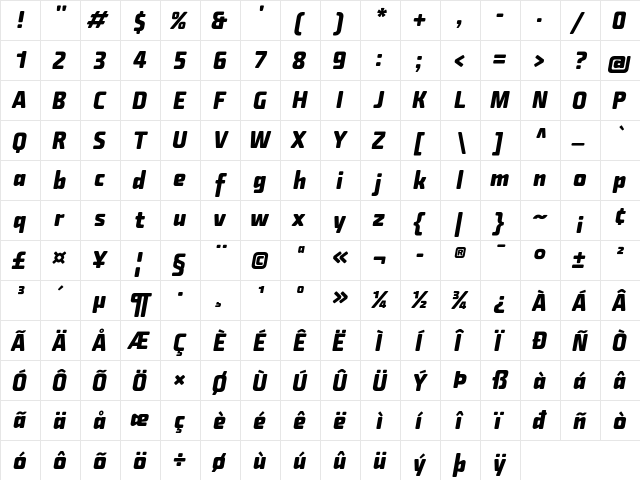
Fishmonger MB Italic
| Foundry | Tomas Brousil |
Design Context for Fishmonger MB Typeface
Fishmonger MB takes a measured approach to typography — its balanced proportions and neutral character make it a reliable workhorse for both digital and print work. The dynamic lean of this cut emphasises speed and emphasis in any layout.
Pro Tip: Try Fishmonger MB for annotation and caption copy alongside an upright companion — the contrast in angle creates a dynamic but ordered typographic system.